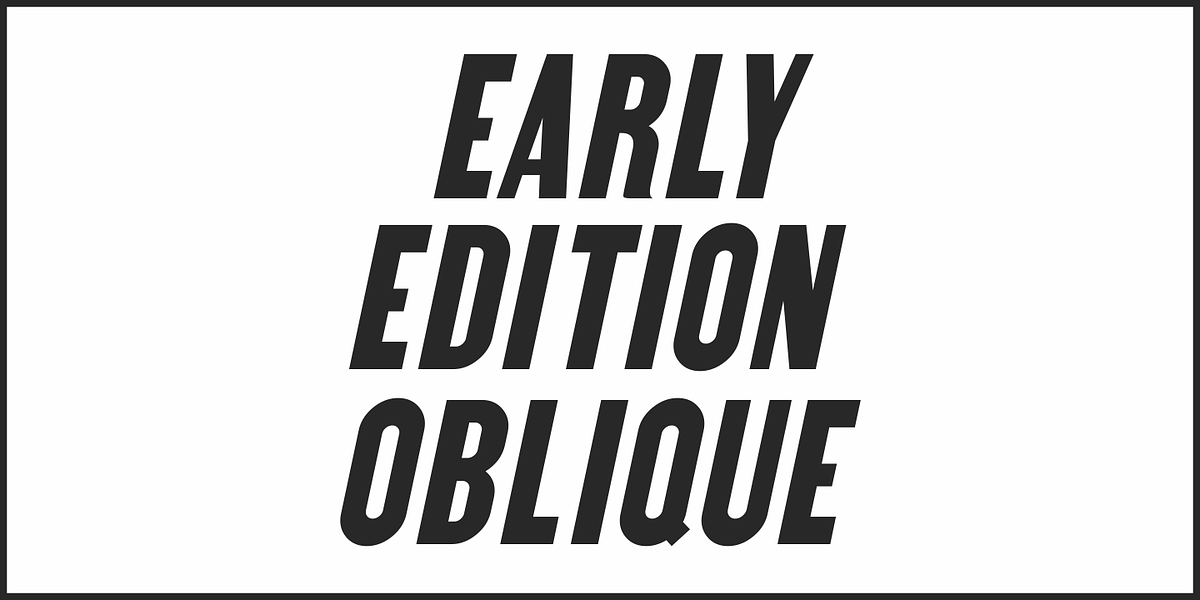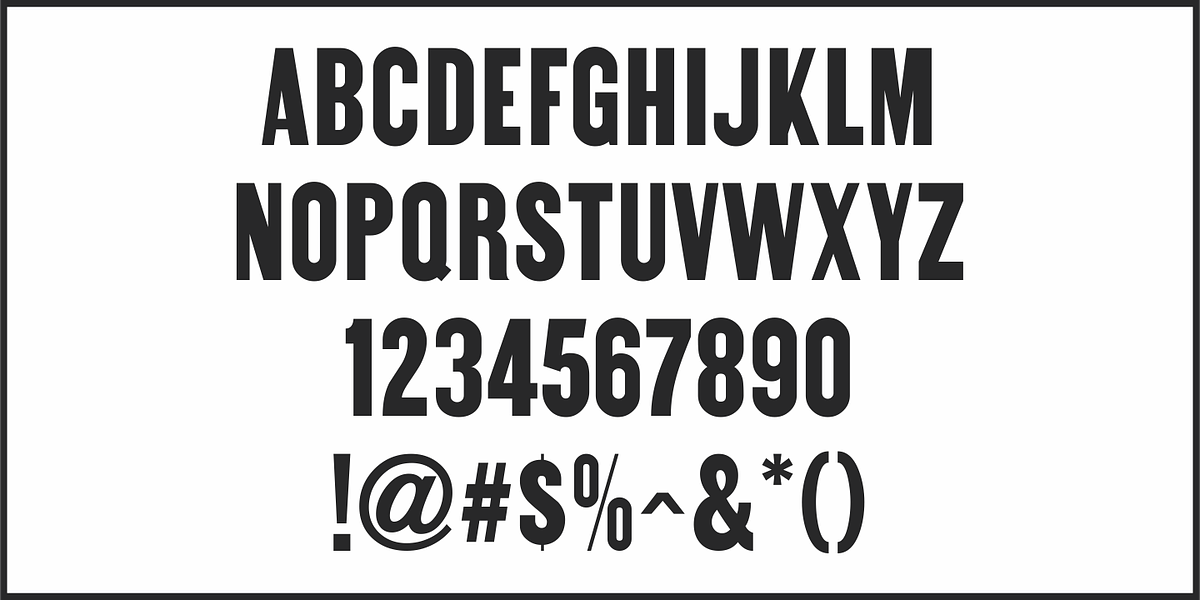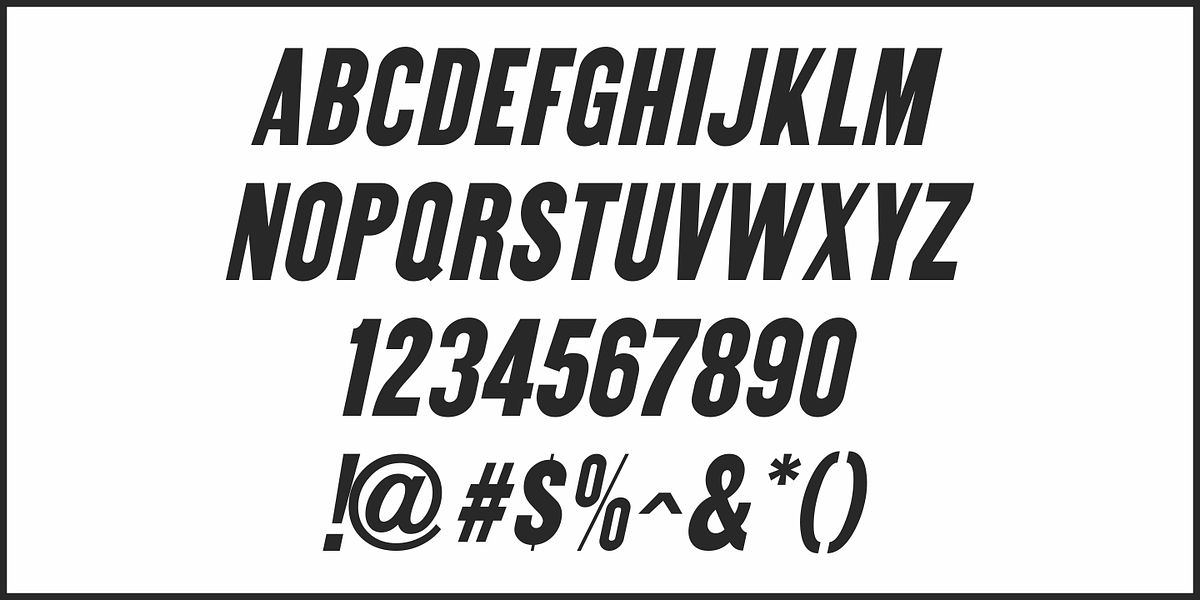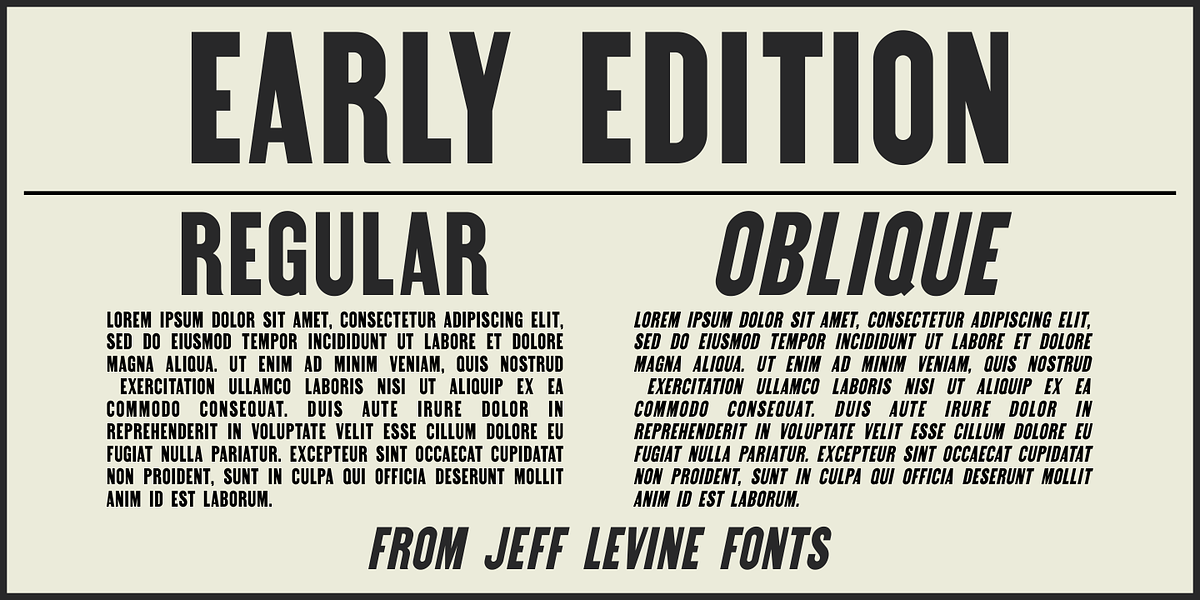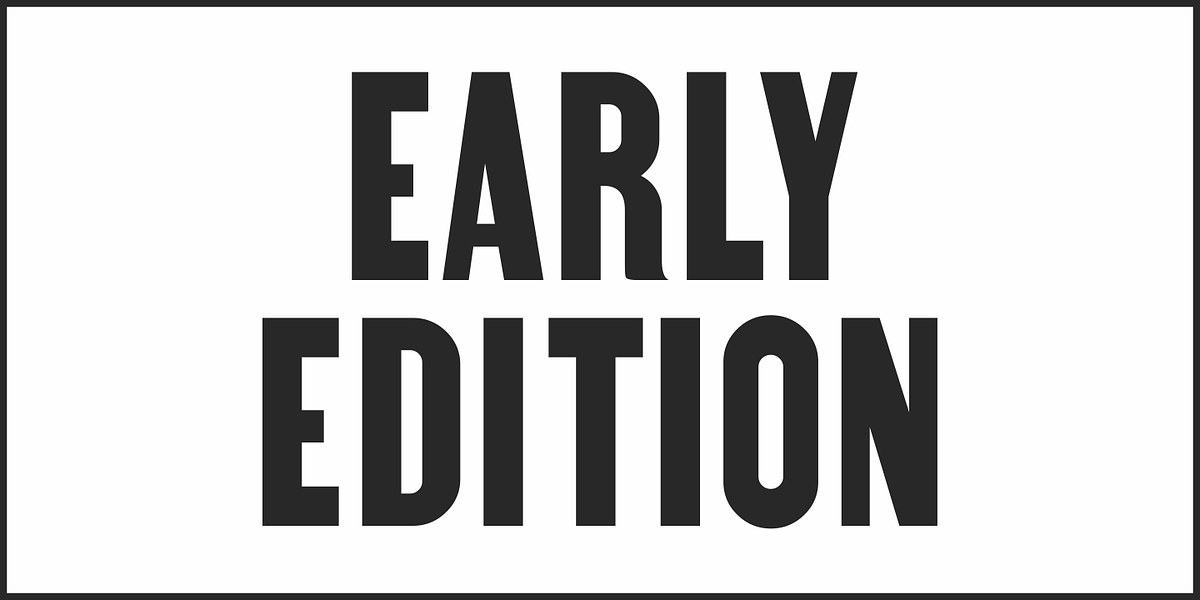
Early Edition JNL
A bold, classic wood type newspaper headline was the inspiration for Early Edition JNL.
The source of the type design was actually a dummy newspaper with the headline “Thursby and Archer Murders Linked” [which was used in the 1941 film noir classic “The Maltese Falcon” featuring an all-star cast headed by Humphrey Bogart, Mary Astor, Peter Lorre and Sidney Greenstreet].
Early Edition JNL is available in both regular and oblique versions.